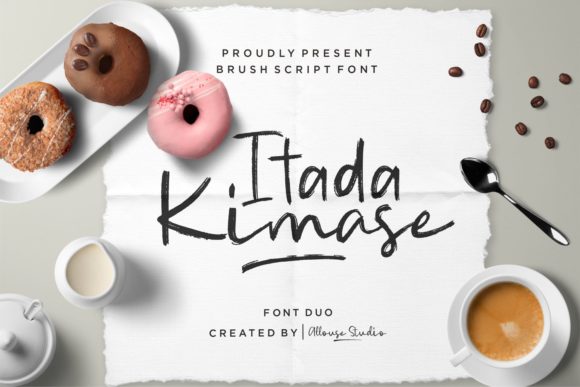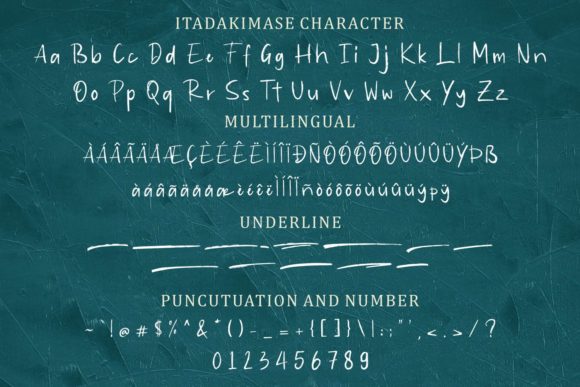
About Itadakimase Duo Font
Itadakimase is a brush duo is a handwritten font that consists of both regular and stylistic glyphs. The characters have an artistic brushstroke element. Itadakimase is perfect for product packaging, branding project, magazine, social media, weddings, or just used to express words above the background.